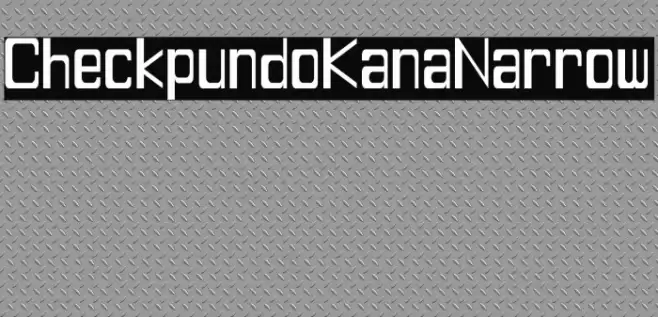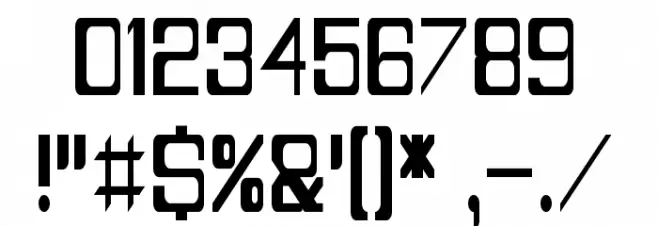
CheckpundoKanaNarrow Font
CheckpundoKanaNarrow Description
This font features a modern, geometric design with a narrow width, giving it a sleek and contemporary appearance. The characters are constructed with clean, straight lines and sharp angles, creating a sense of precision and clarity. The uppercase letters are bold and commanding, while the lowercase letters maintain a consistent style with slightly softer edges. The numerals are distinct and easy to read, with a uniform height that complements the overall design. Special characters are integrated seamlessly, maintaining the font's cohesive look. This font's narrow form factor makes it ideal for space-saving applications without sacrificing readability.
A modern, geometric font with a narrow width and clean lines from Sans Serif fonts.
- Proposed Projects: Ideal for branding, advertising, and editorial design where a modern and space-efficient typeface is needed.
- Use Case: Headlines, Logos, Branding